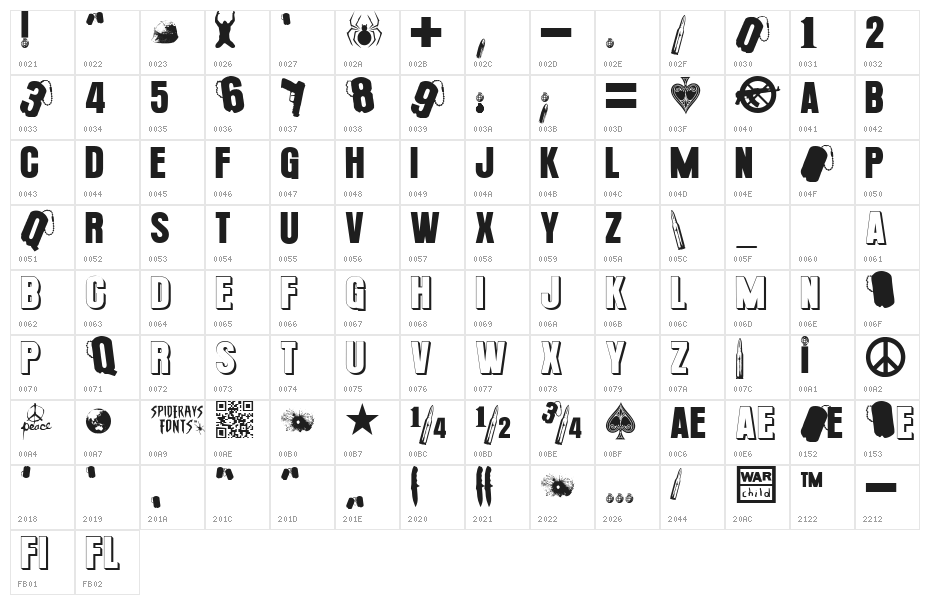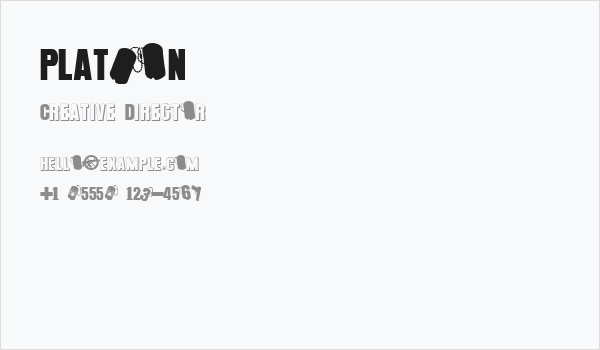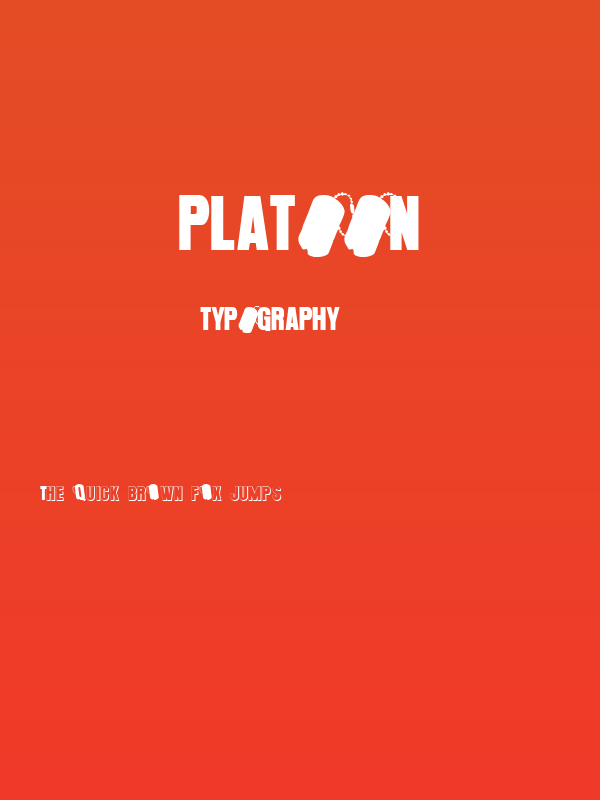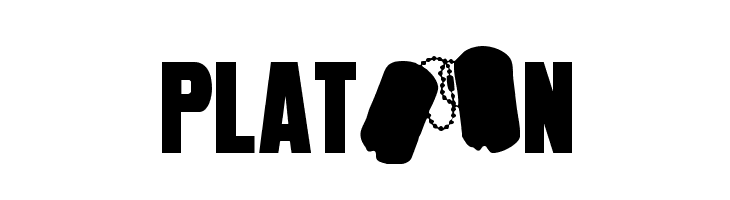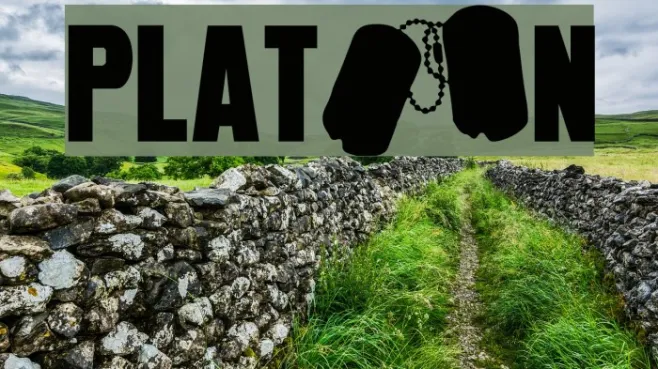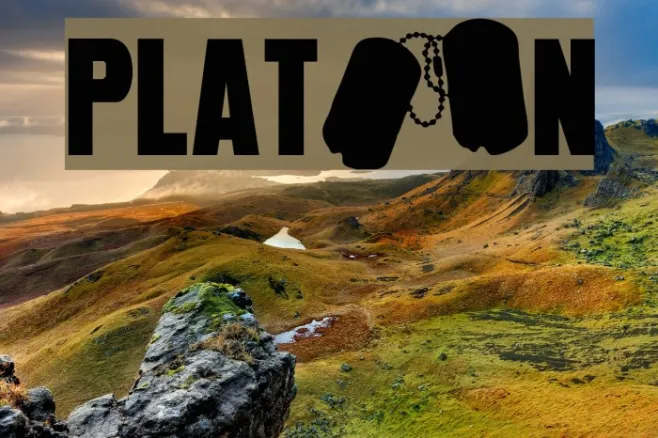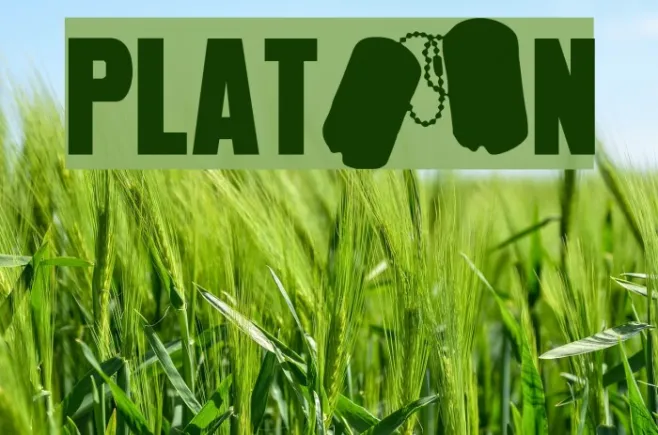
PLATOoN Font
PLATOoN Description
This font features a bold, military-inspired design with strong, blocky letters that convey a sense of strength and authority. The uppercase letters are particularly striking, with a solid, impactful presence. The inclusion of dog tags and military-themed symbols within some characters adds a unique, thematic touch, making it ideal for projects that require a rugged or tactical aesthetic. The numbers and special characters maintain the same bold style, ensuring consistency across different uses. This font is perfect for creating attention-grabbing headlines, posters, or branding materials that need to convey a sense of power and resilience.
| Overall Style | Military, Tactical, Bold |
| Use Case | Headlines, Posters, Branding |
| Proposed Projects | Ideal for military-themed posters, branding, headlines, and tactical design projects. |